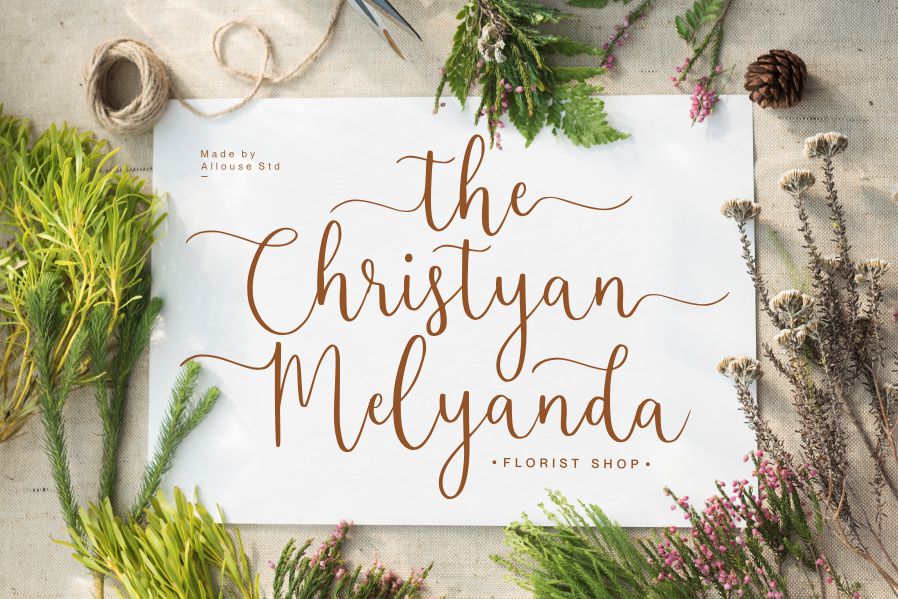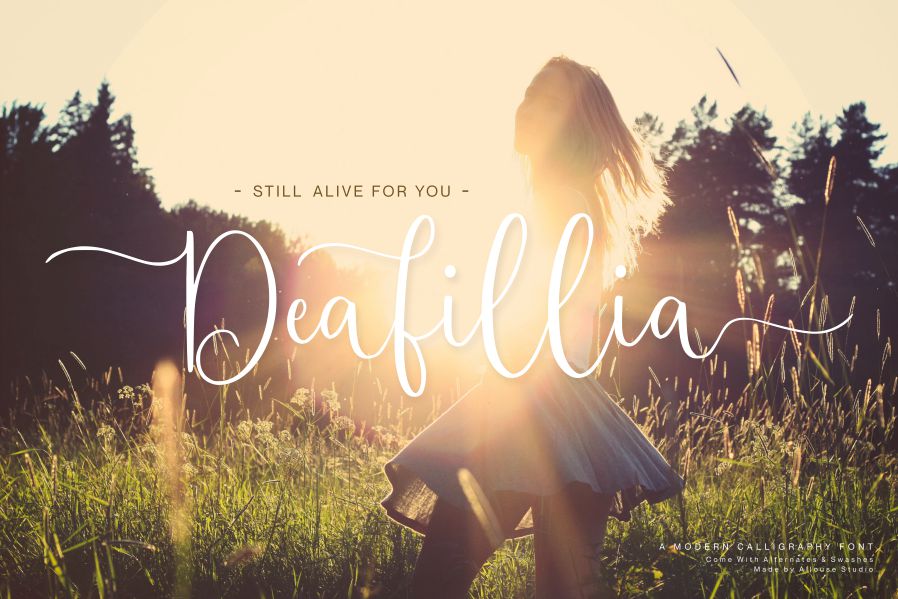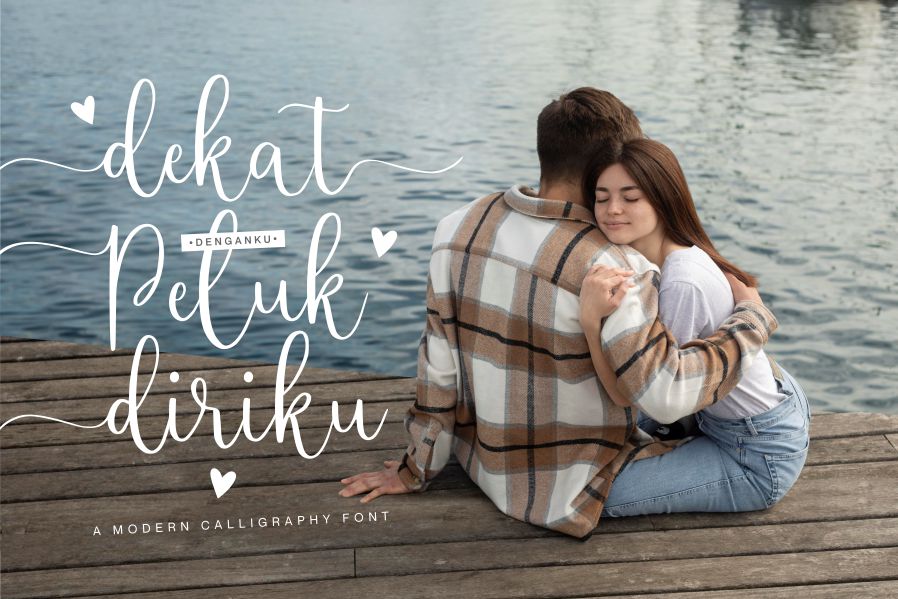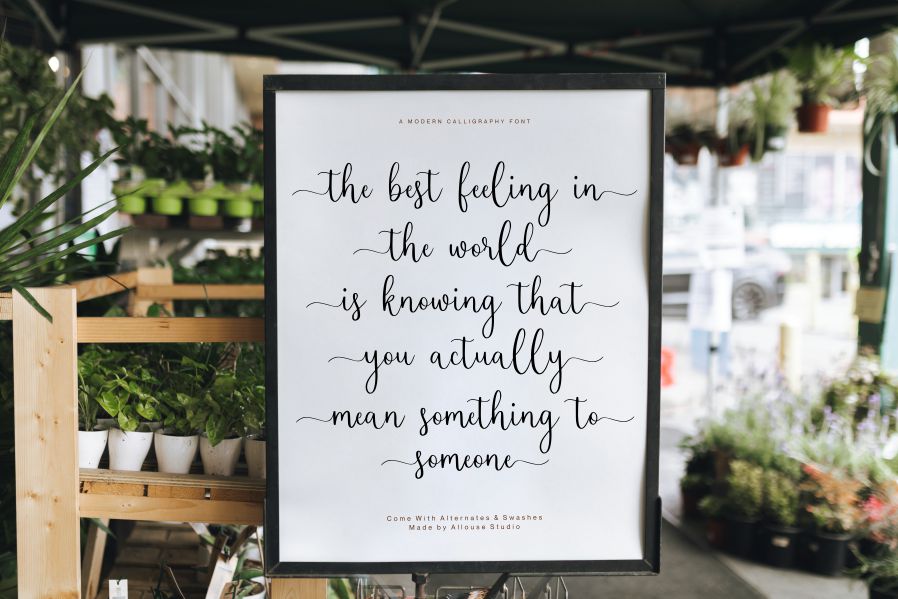
Heartcahe Script Font
This is a beautiful handwritten font perfect for product packaging, branding project, magazines, social media posts, weddings, or just used to express words above the background. This font is PUA encoded, which means you can access all of the glyphs and swashes with ease!